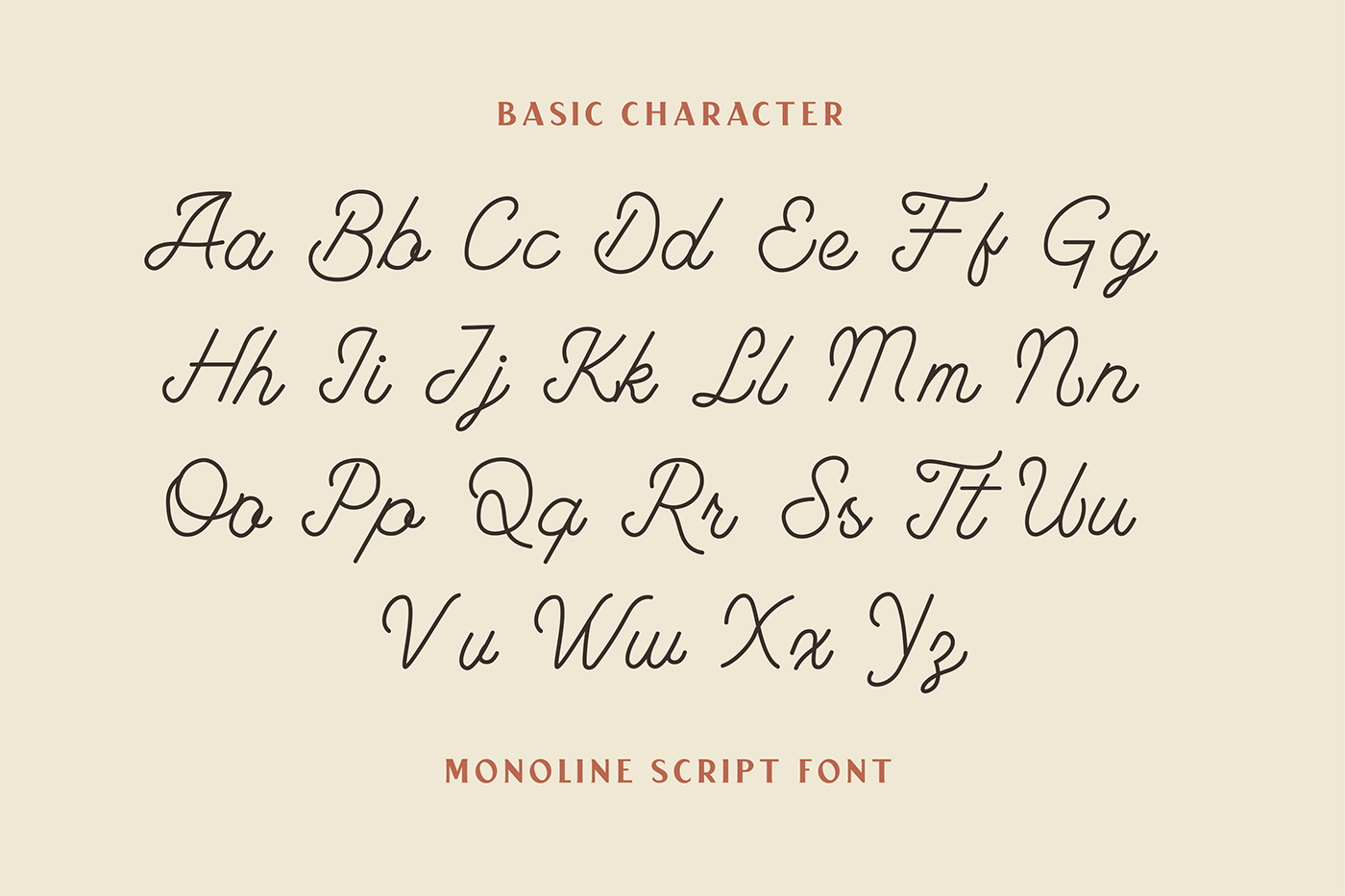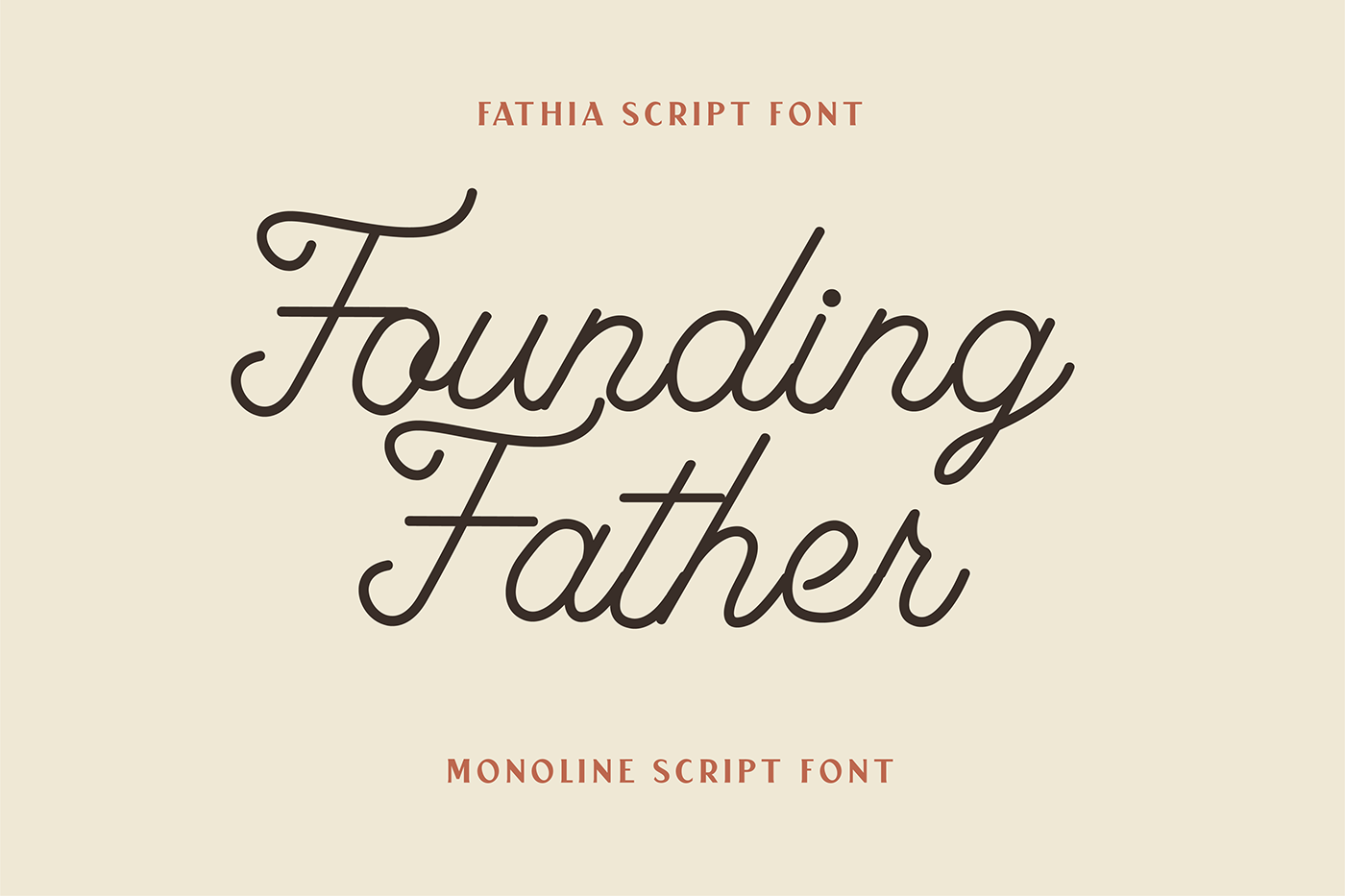
Introducing Fathia Script from YUKITA CREATIVE. This modern and elegant font is a high-quality font that is perfect for any design project. With its stylish curves and flowing lines, Fathia Script is sure to make your projects stand out from the crowd. Download Fathia Script today and start creating beautiful designs that everyone will love.